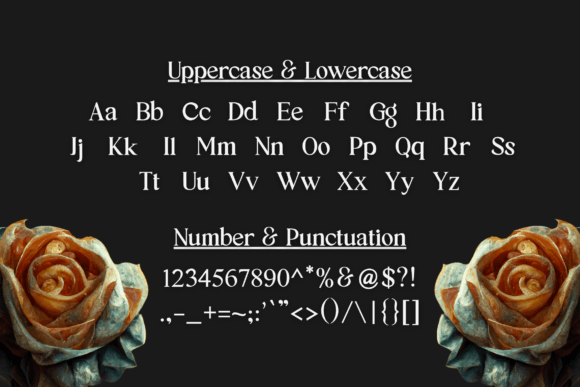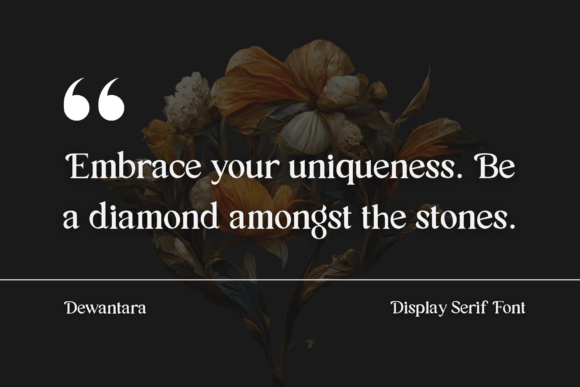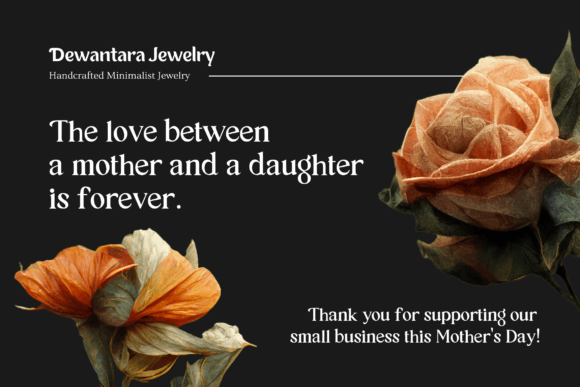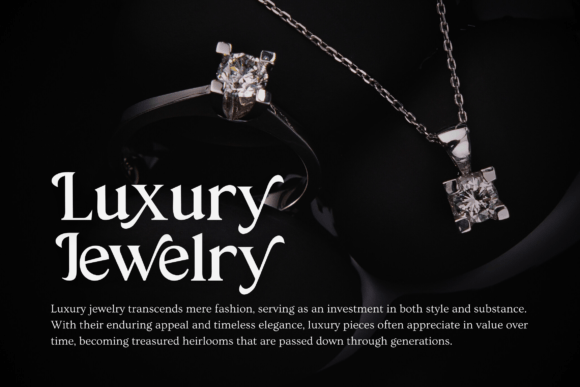
The Dewantara Font: Elevate Your Designs with Timeless Elegance
I’ll never forget the design project that led me to discover the Dewantara font. I was working on a luxury branding campaign for a high-end fashion client, and I was struggling to find the perfect font that exuded sophistication and elegance. The client was adamant that the font had to be unique, yet classic, and had to elevate their brand to new heights. After hours of scouring through font libraries, I stumbled upon Dewantara, and it was love at first sight! ✨
As a designer, I’m always on the lookout for fonts that can help me create stunning visuals. Here’s what I love about Dewantara:
- ✨ Timeless elegance: Dewantara’s refined letterforms and graceful curves make it perfect for luxury branding, editorial layouts, and elegant signage.
- ✅ Versatility: This font can be used for a wide range of design projects, from high-end fashion to elegant wedding invitations.
- 💯 Attention to detail: The font’s intricate details and subtle nuances make it a standout in any design.
However, I do have to mention a few quirks:
- 🤔 Limited availability of certain glyphs: While Dewantara has a wide range of glyphs, some users may find that certain special characters are not available.
- ⚠️ Requires careful kerning: As with any serif font, Dewantara requires careful kerning to ensure that the text looks polished and professional.
The Story Behind Dewantara
Dewantara was designed by a team of typographers who wanted to create a font that embodied timeless elegance and sophistication. The font’s name, Dewantara, is inspired by the Indonesian word for “independent,” which reflects the font’s unique and refined character. The design team drew inspiration from classic serif fonts, but added their own twist to create a truly unique and versatile font.
| Font Name | Dewantara Font |
| Author | filosovis.co |
| What is Dewantara? | Dewantara is a modern and stylish serif font that embodies timeless elegance and sophistication. |
| What is Dewantara best used for? | Dewantara is perfect for luxury branding, editorial layouts, and elegant signage. |
| Is Dewantara easy to read? | Yes, Dewantara is designed to be highly legible, making it perfect for use in body text and other long-form content. |